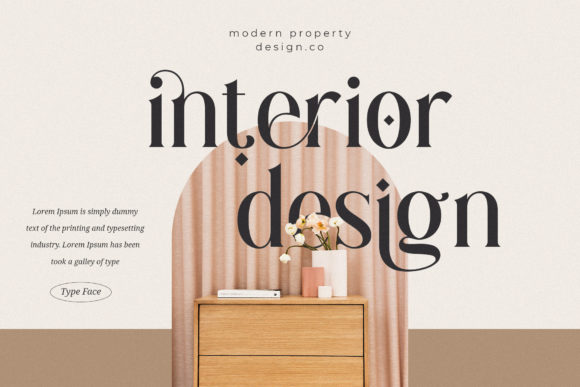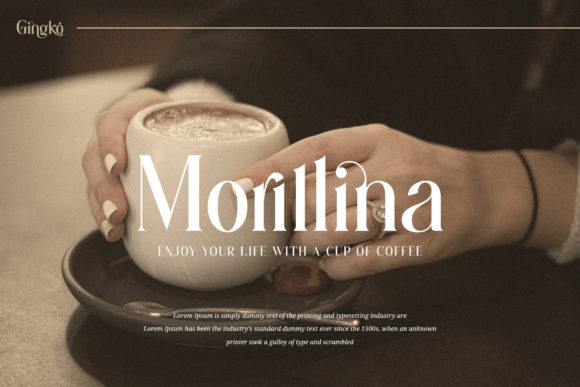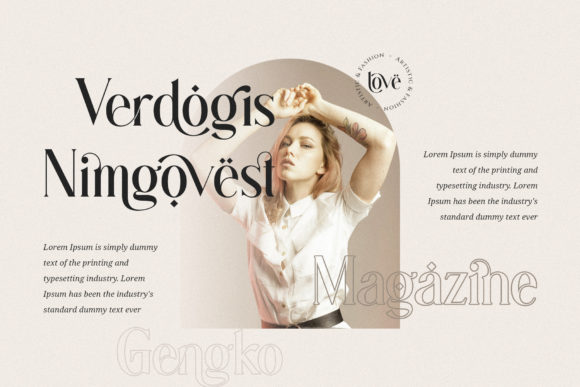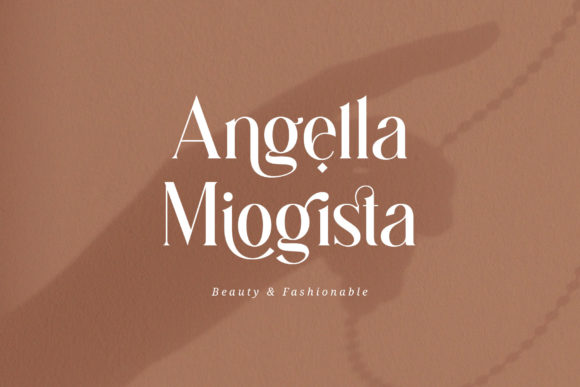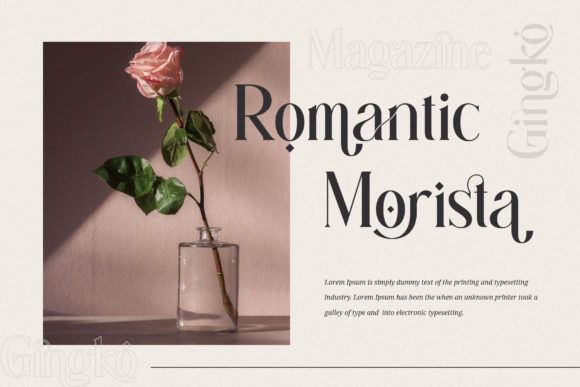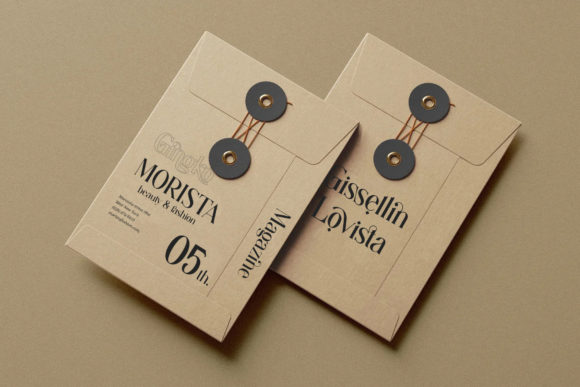
Gingko Font: The Elegant and Versatile Serif Font for Your Design Needs
Are you a designer or crafter looking for a font that can elevate your designs and add a touch of elegance? Look no further than the Gingko font. This beautiful serif font is perfect for a wide range of design projects, from logos and branding to packaging and digital media. In this article, we’ll explore the features and benefits of the Gingko font, and why it’s becoming a favorite among designers and crafters.
What is Gingko Font?
Gingko is an elegant and distinct serif font that is designed to be both simple and sophisticated. Its neat and clean style makes it easy to read and versatile enough to be used in a variety of design projects. Whether you’re creating a logo, brochure, or website, the Gingko font is a great choice.
Key Features of Gingko Font
- Elegant and Distinctive: The Gingko font has a unique and elegant style that sets it apart from other serif fonts. Its distinctive features make it perfect for designs that require a touch of sophistication.
- Simple and Clean: The Gingko font is designed to be simple and clean, making it easy to read and versatile enough to be used in a wide range of design projects.
- Neat and Legible: The Gingko font is highly legible, even at small sizes, making it perfect for body text and other applications where readability is key.
- Highly Versatile: The Gingko font can be used in a wide range of design projects, from logos and branding to packaging and digital media.
Benefits of Using Gingko Font
There are many benefits to using the Gingko font in your designs. Here are just a few:
- Instant Elegance: The Gingko font adds a touch of elegance and sophistication to any design, making it perfect for high-end brands and luxury products.
- Improved Readability: The Gingko font is highly legible, even at small sizes, making it perfect for body text and other applications where readability is key.
- Versatility: The Gingko font can be used in a wide range of design projects, from logos and branding to packaging and digital media.
- Unique and Memorable: The Gingko font has a unique and distinctive style that can help your brand stand out and be remembered.
How to Use Gingko Font in Your Designs
Using the Gingko font in your designs is easy. Here are a few tips to get you started:
- Pair it with Other Fonts: The Gingko font pairs well with other fonts, including sans-serif fonts and script fonts. Experiment with different pairings to find the one that works best for your design.
- Use it for Headings and Body Text: The Gingko font is highly legible, making it perfect for both headings and body text.
- Experiment with Different Sizes and Colors: The Gingko font looks great in a variety of sizes and colors. Experiment with different options to find the one that works best for your design.
The Gingko font is a beautiful and versatile serif font that is perfect for a wide range of design projects. Its elegant and distinctive style, combined with its simplicity and legibility, make it a great choice for designers and crafters. Whether you’re creating a logo, brochure, or website, the Gingko font is a great option to consider.